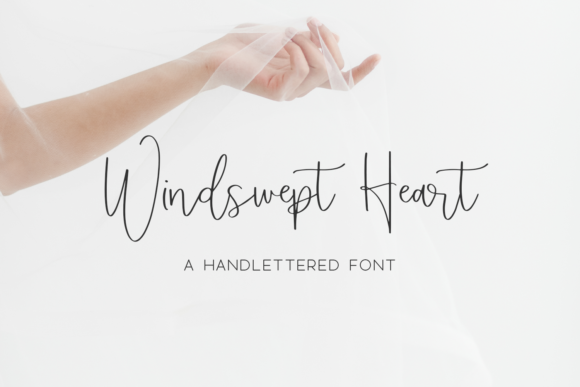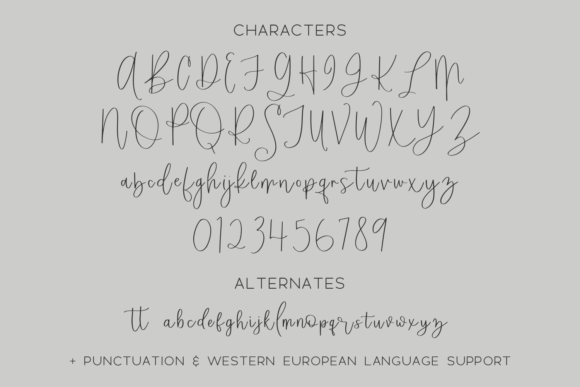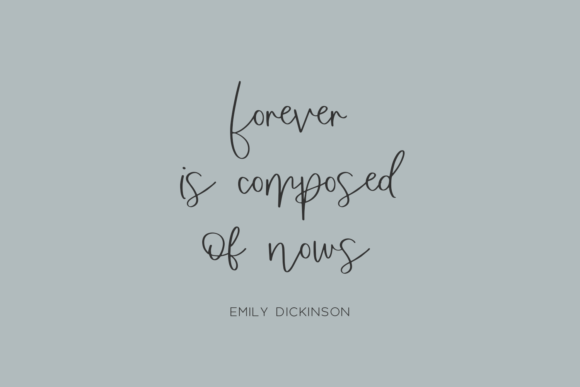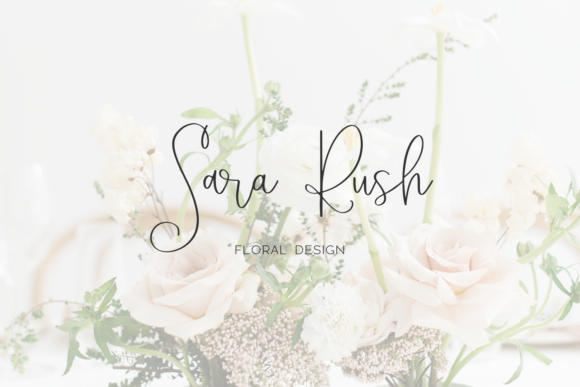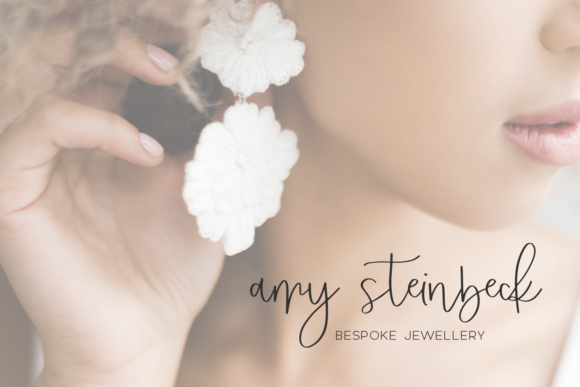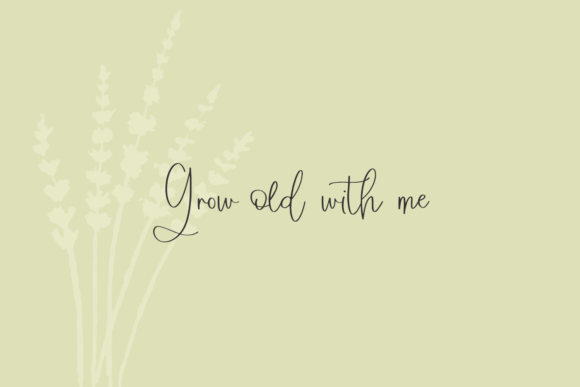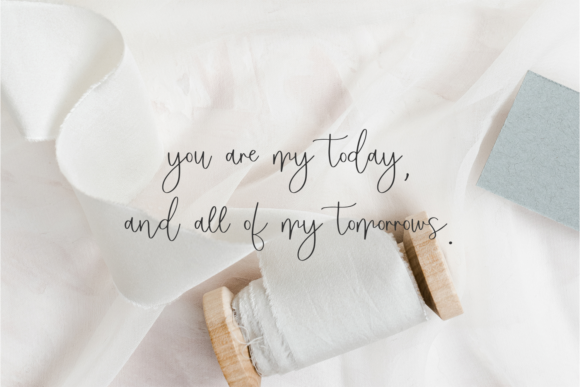
Windswept Heart Font
About Windswept Heart Font
Windswept Heart is a thin and flowing handwritten font. Use this font for with your designs and explore its endless possibilities.